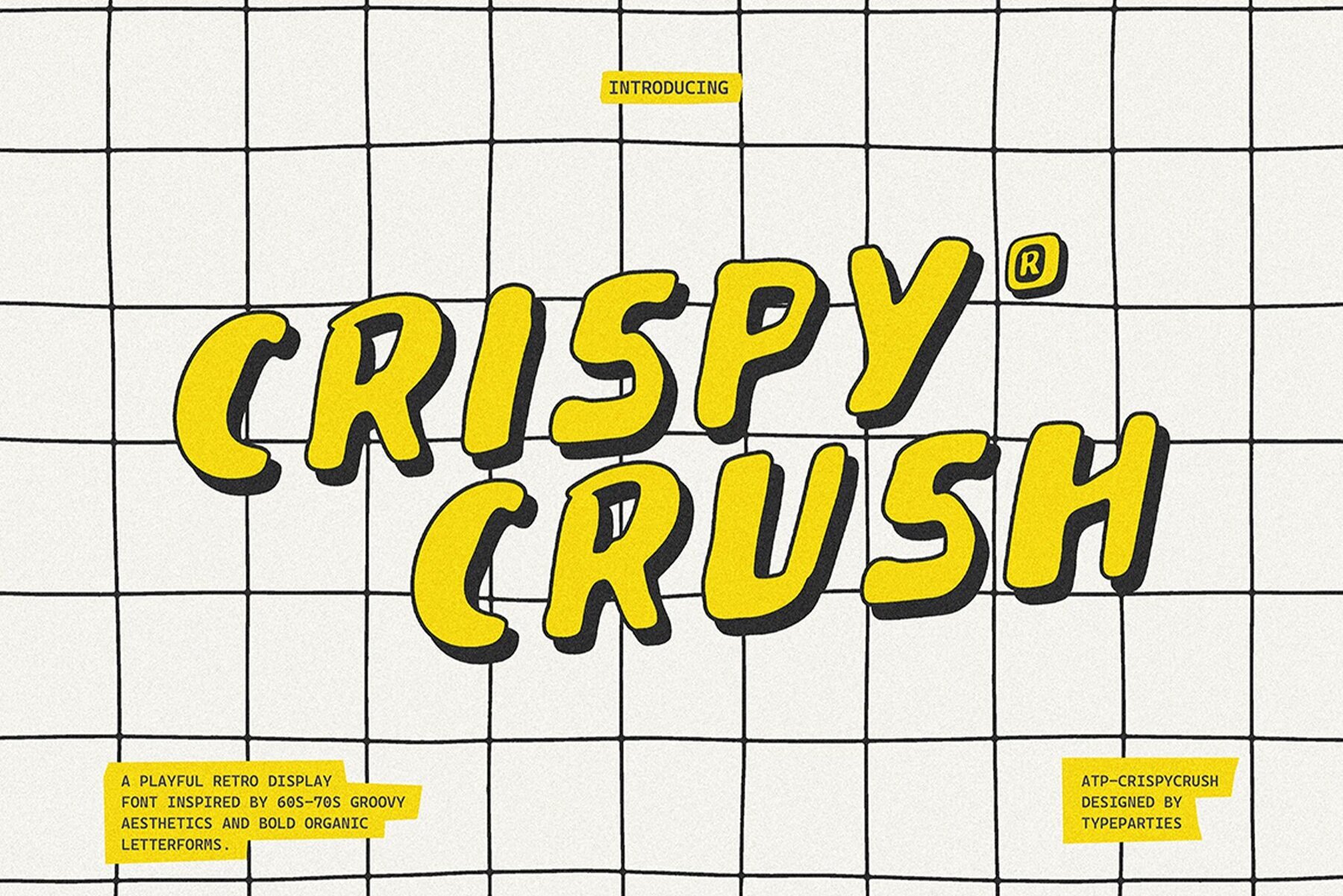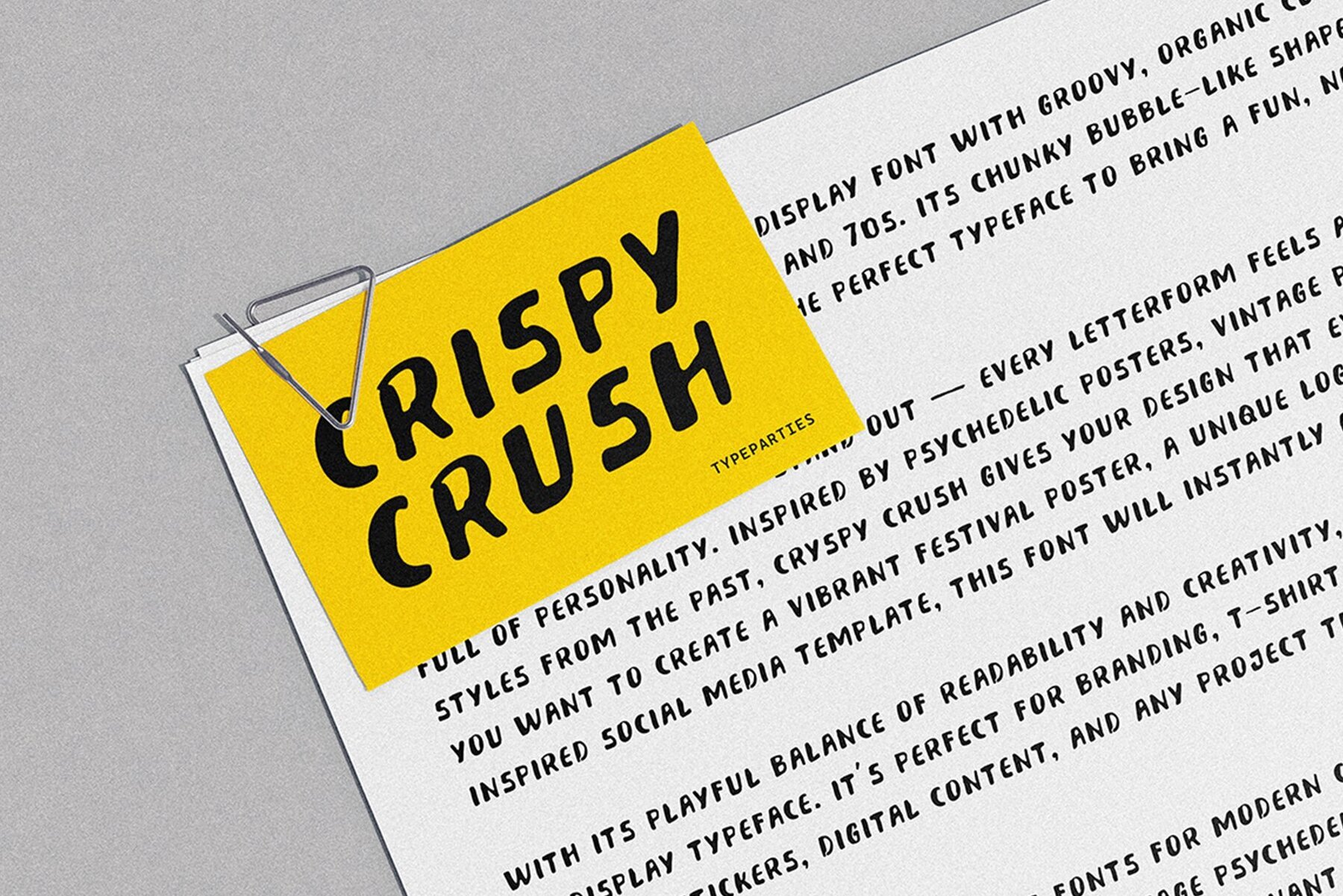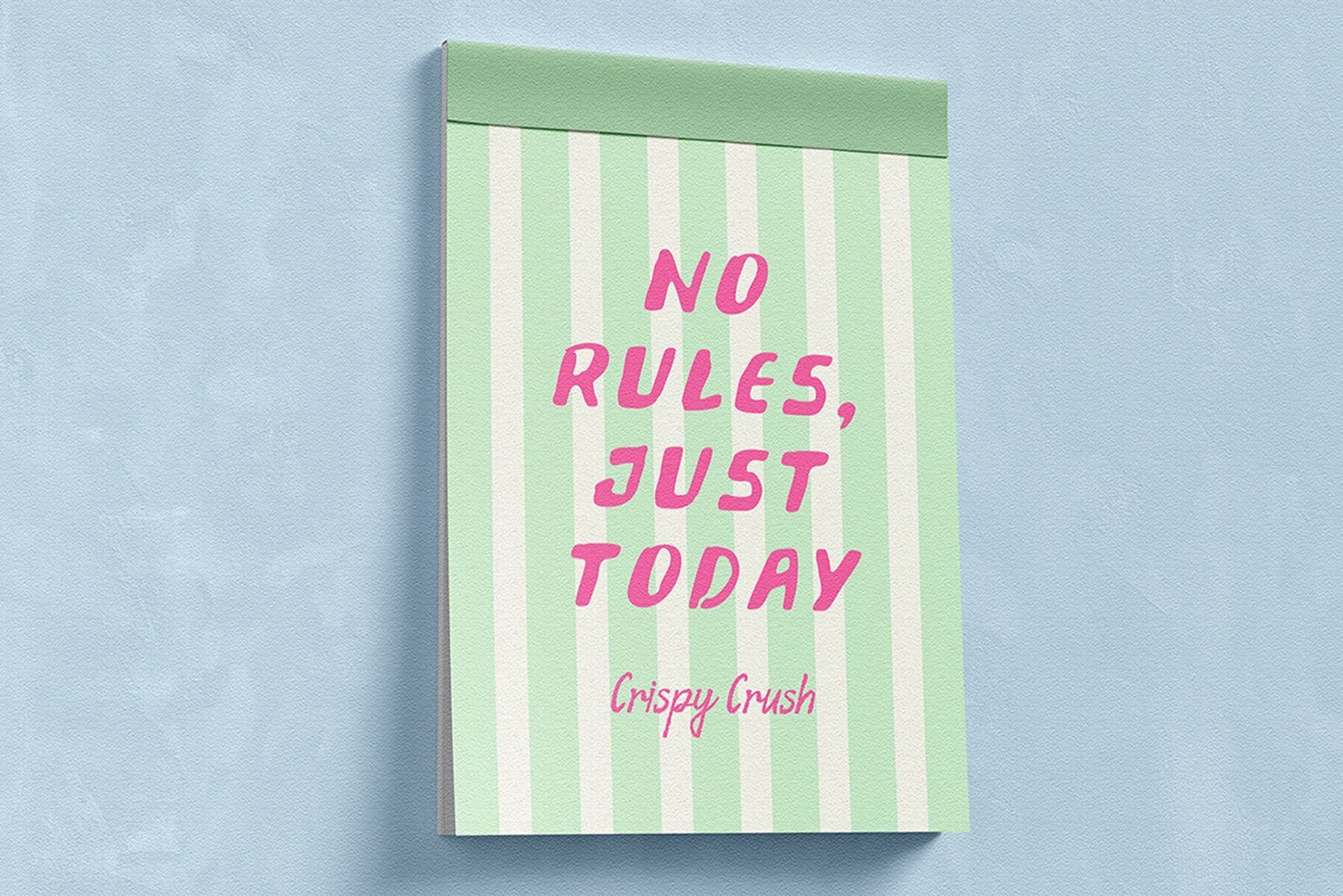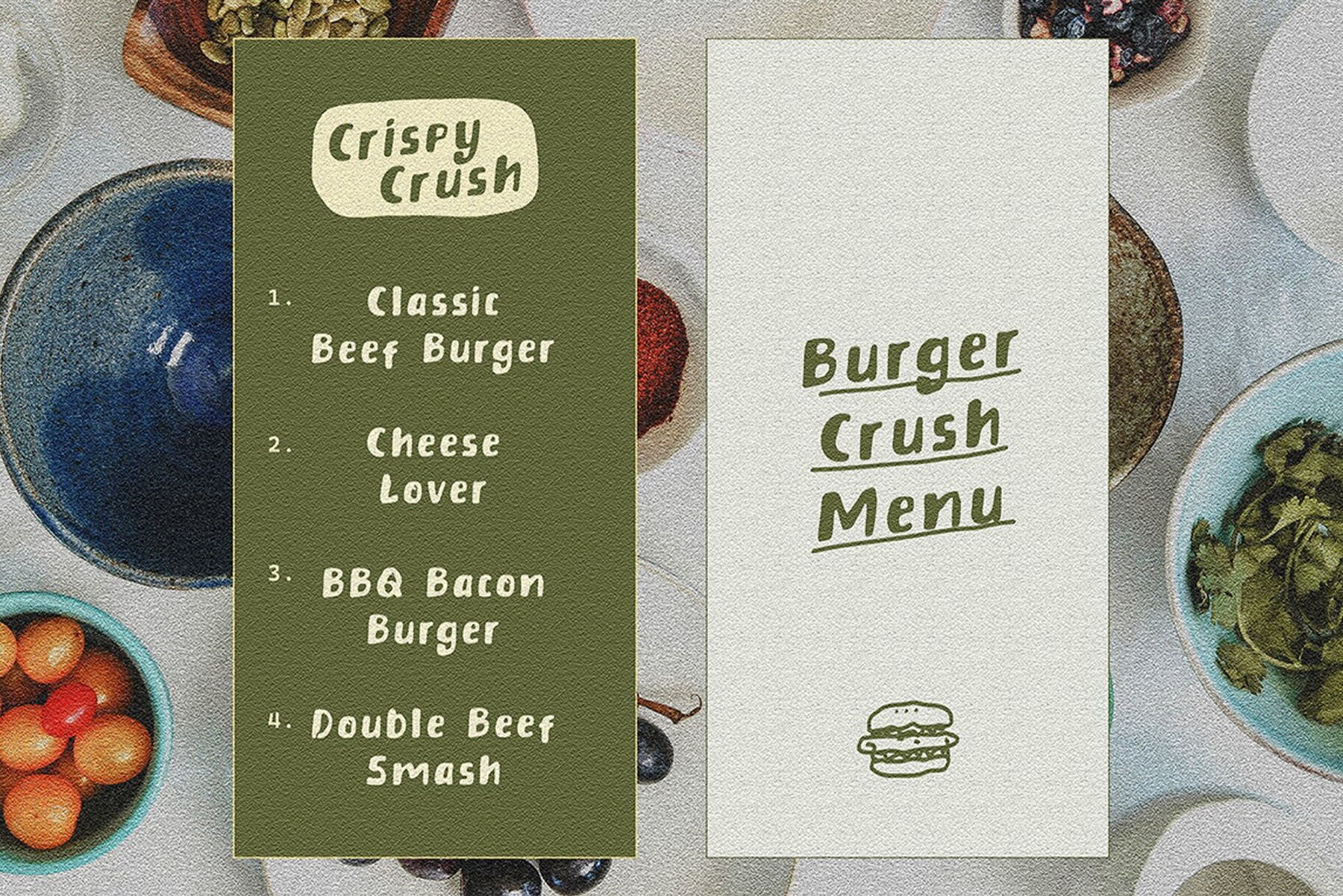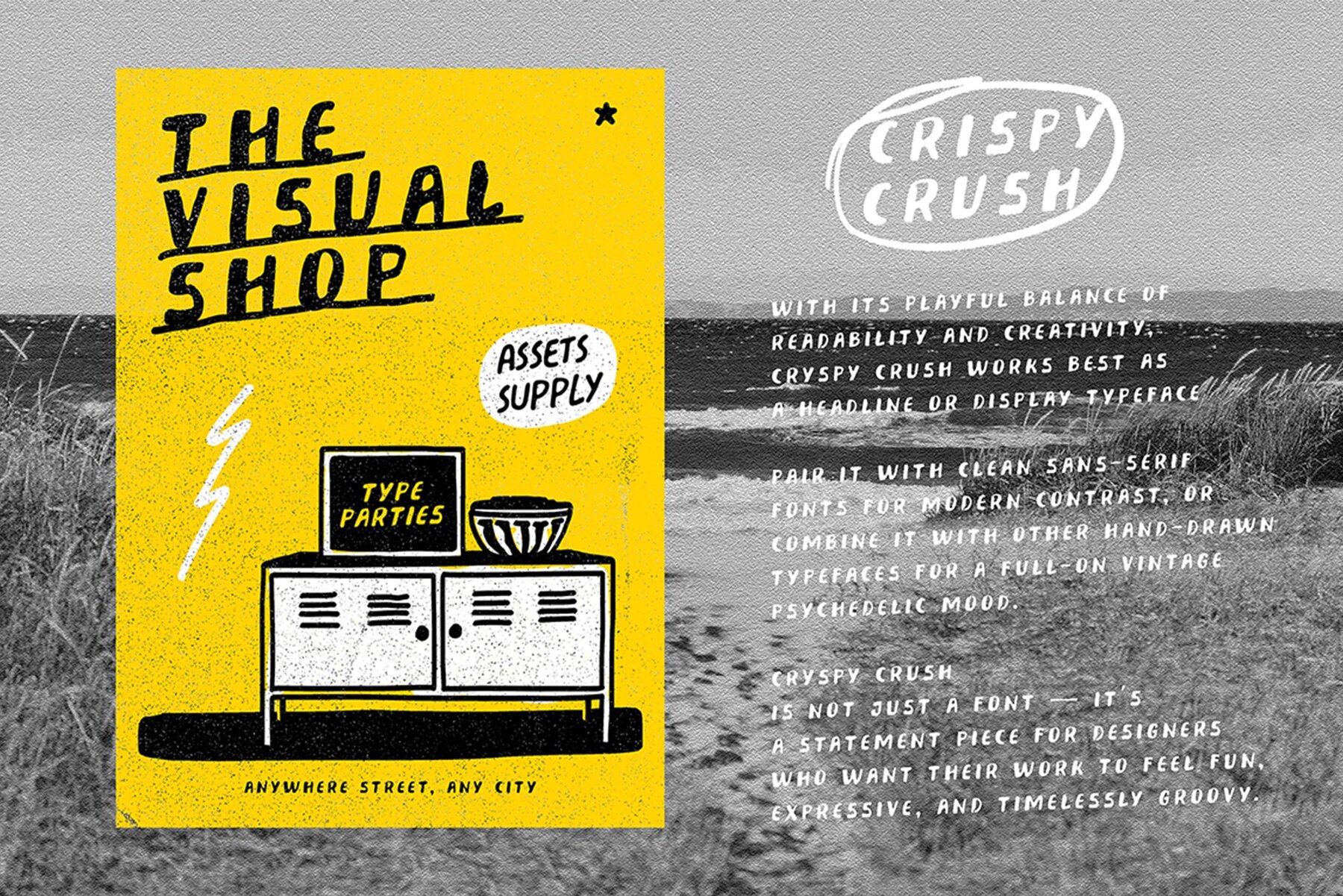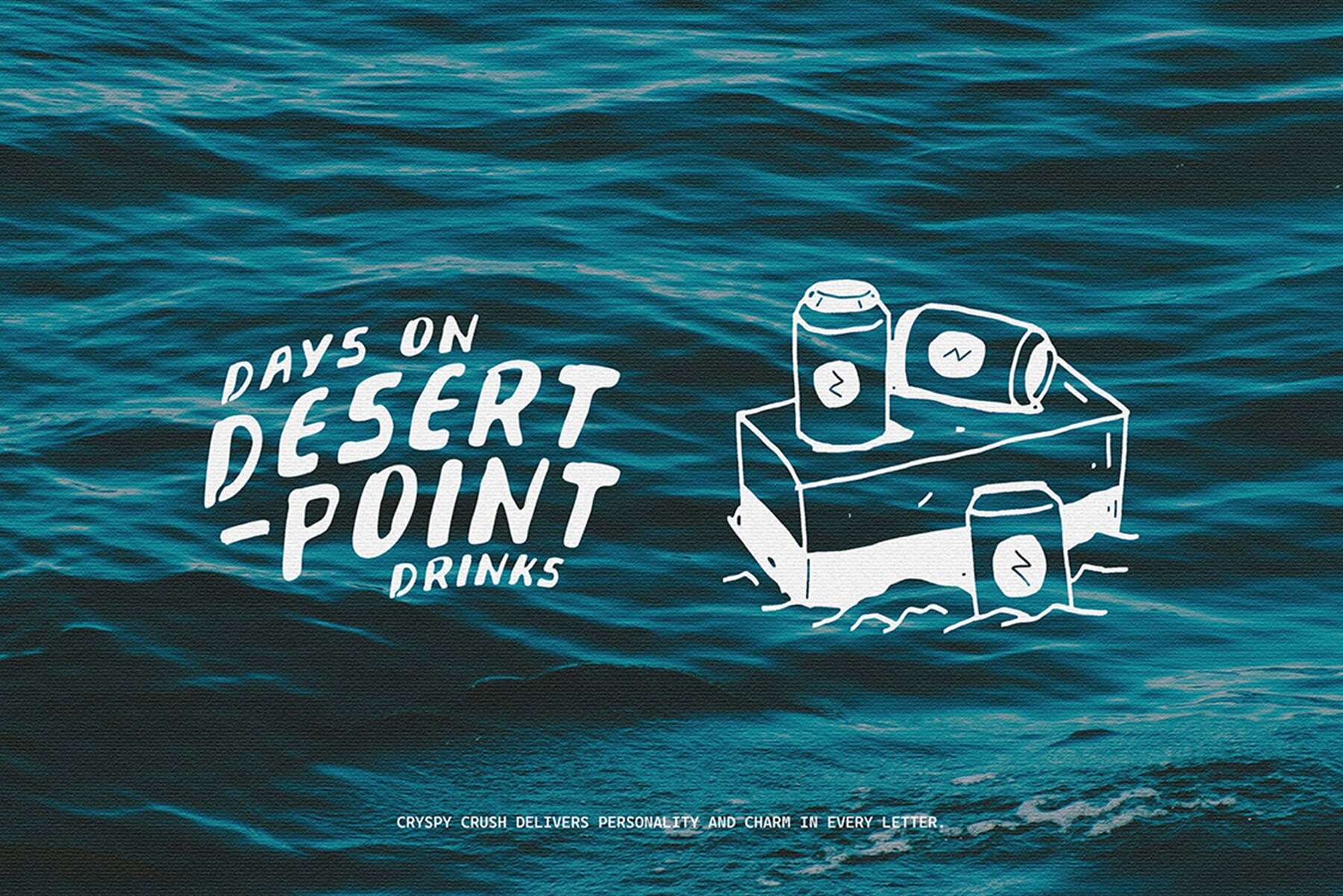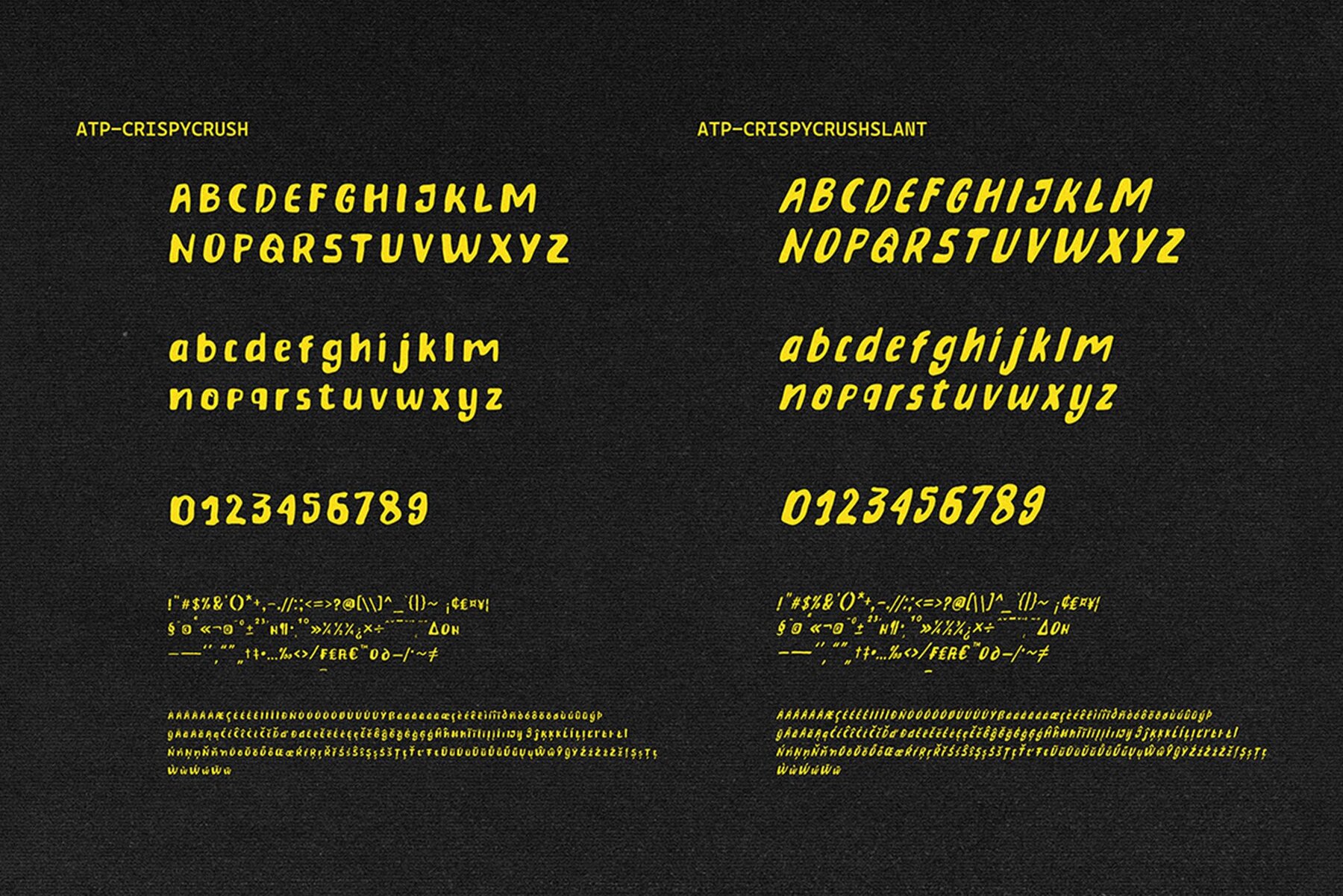
Crispy Crush Font
The Cryspy Crush font channels the vibrant playfulness of the 60s and 70s, encapsulating the era's spirit with its bold, organic curves and chunky, bubble-like shapes. This hand-drawn typeface brings an unmistakable nostalgic vibe to creative projects, imbuing each design with a quirky rhythm and a lively, imperfect character. Influenced by psychedelic posters and vintage packaging, Cryspy Crush offers an eye-catching presence for various uses. Whether crafting a festival poster, designing a distinctive logo for a food brand, or developing a retro-inspired social media template, this font captures attention effortlessly. Features:Cryspy Crush: Retro Display Font With Groovy Curves